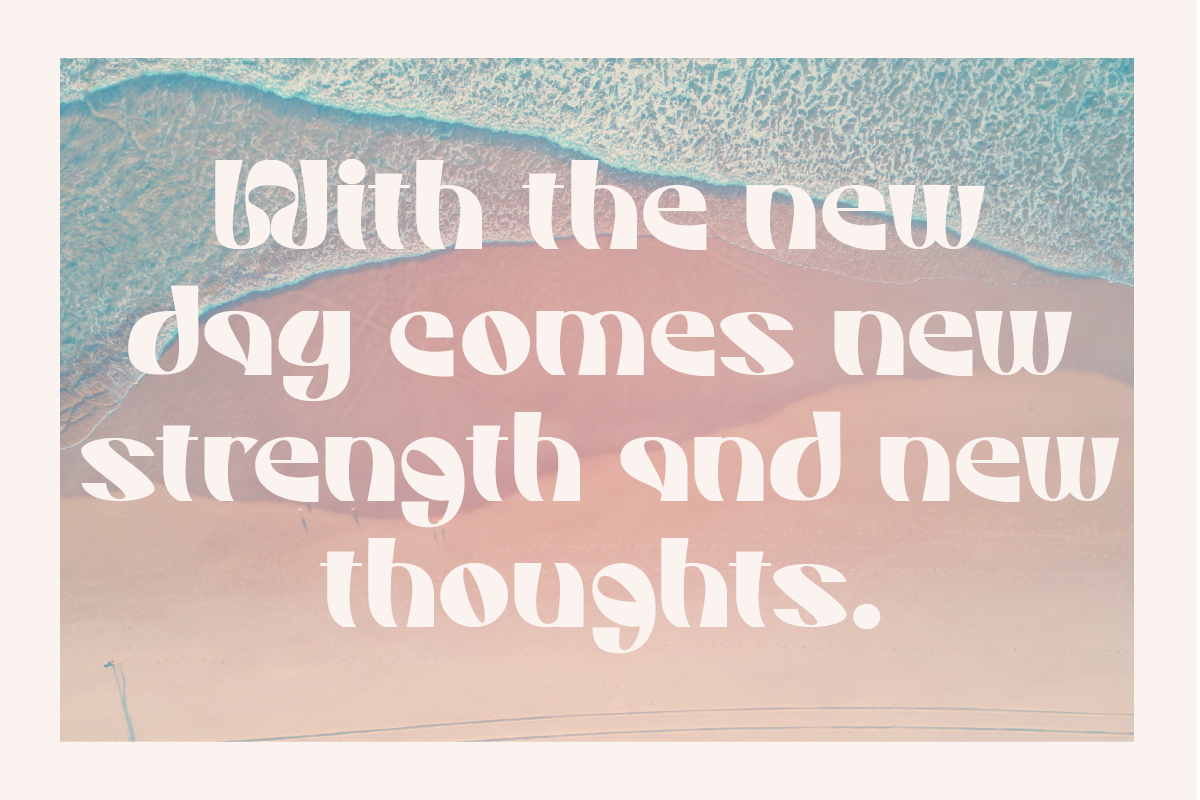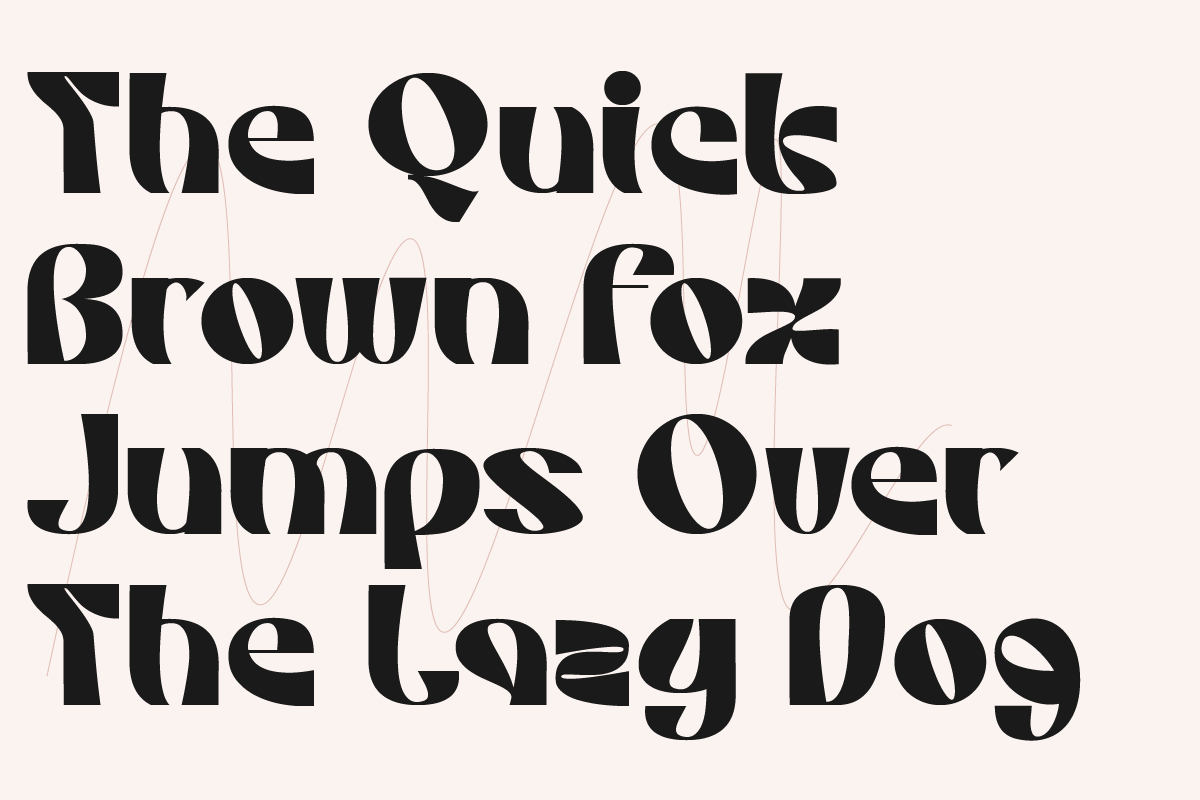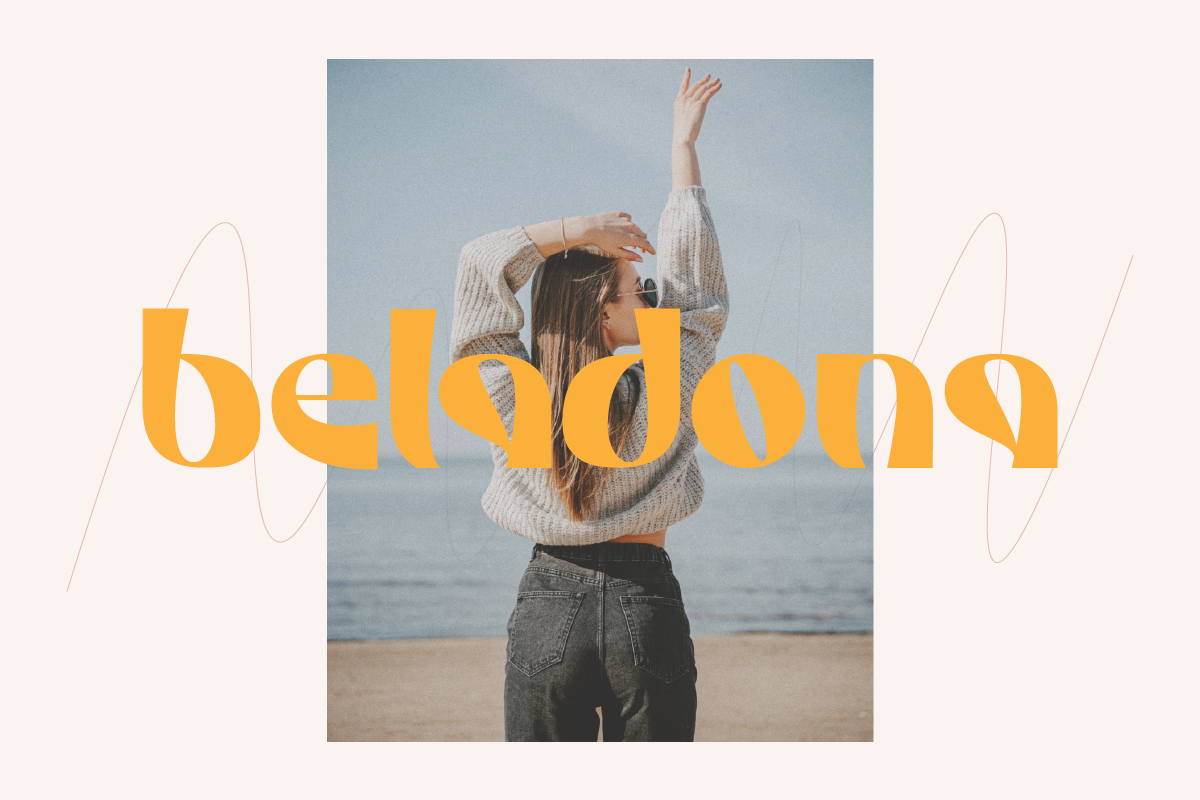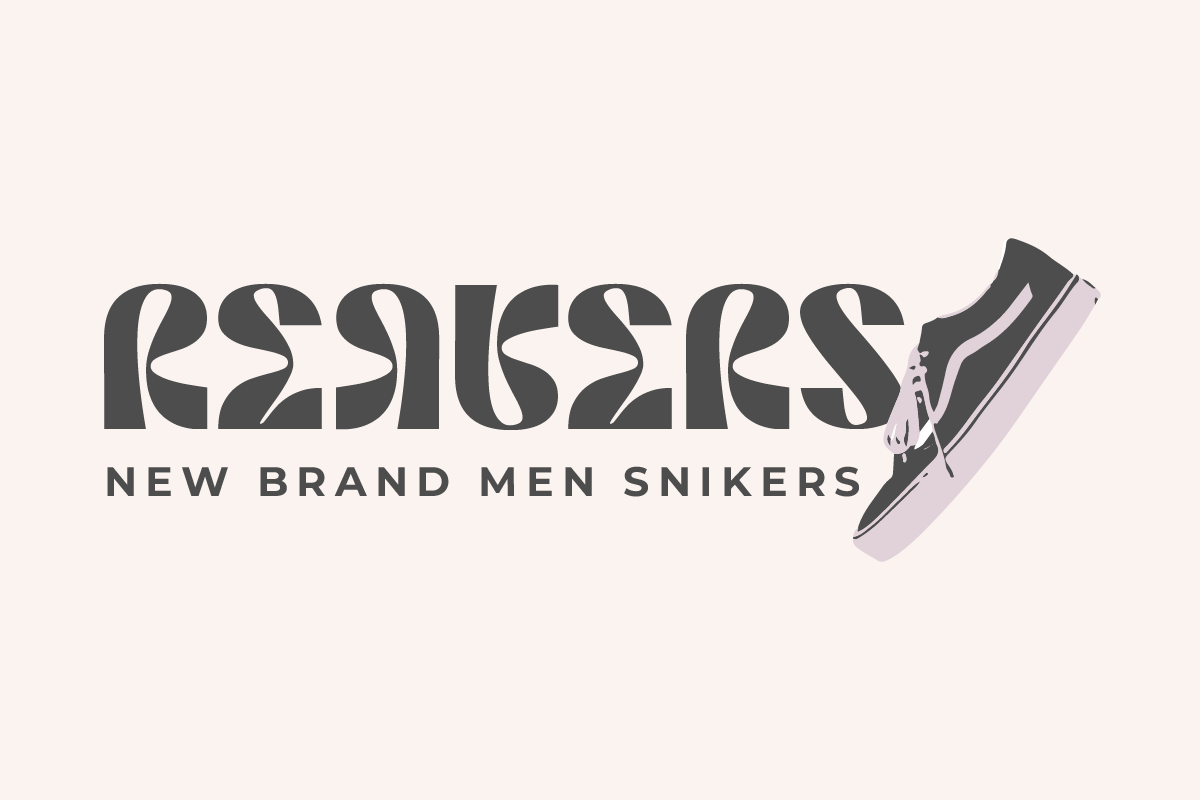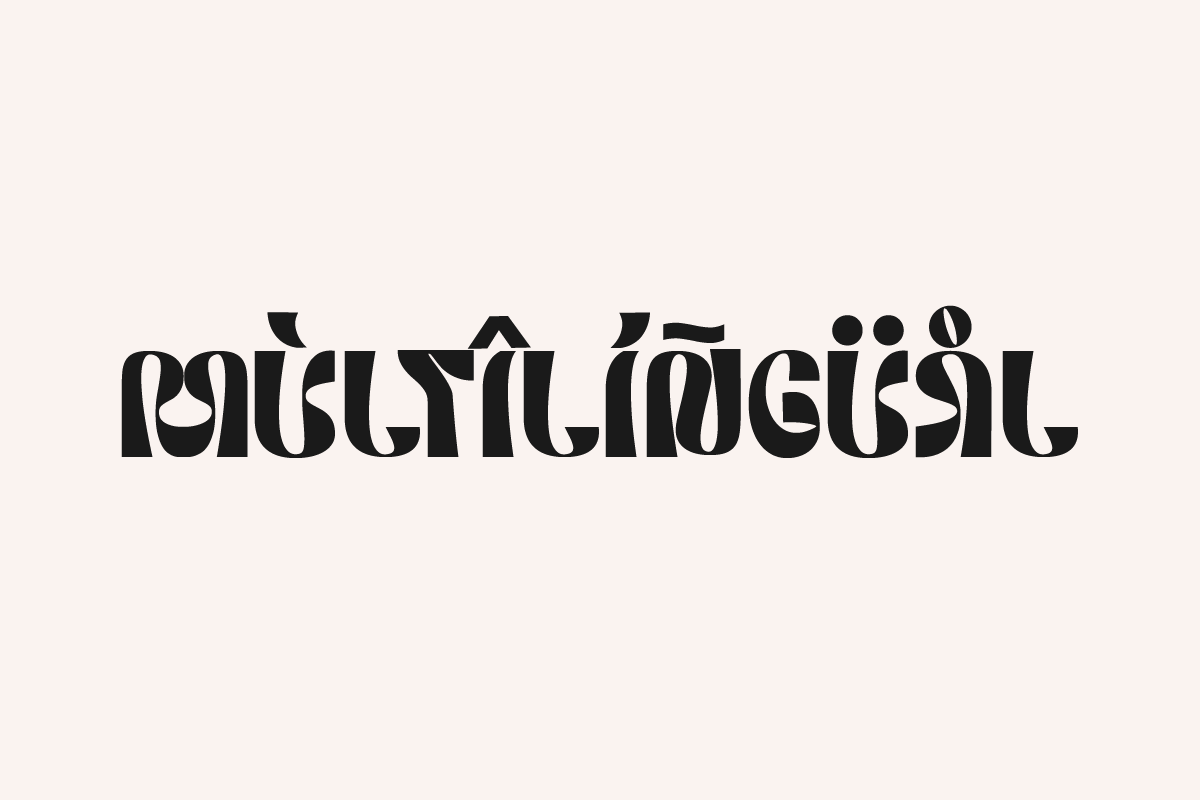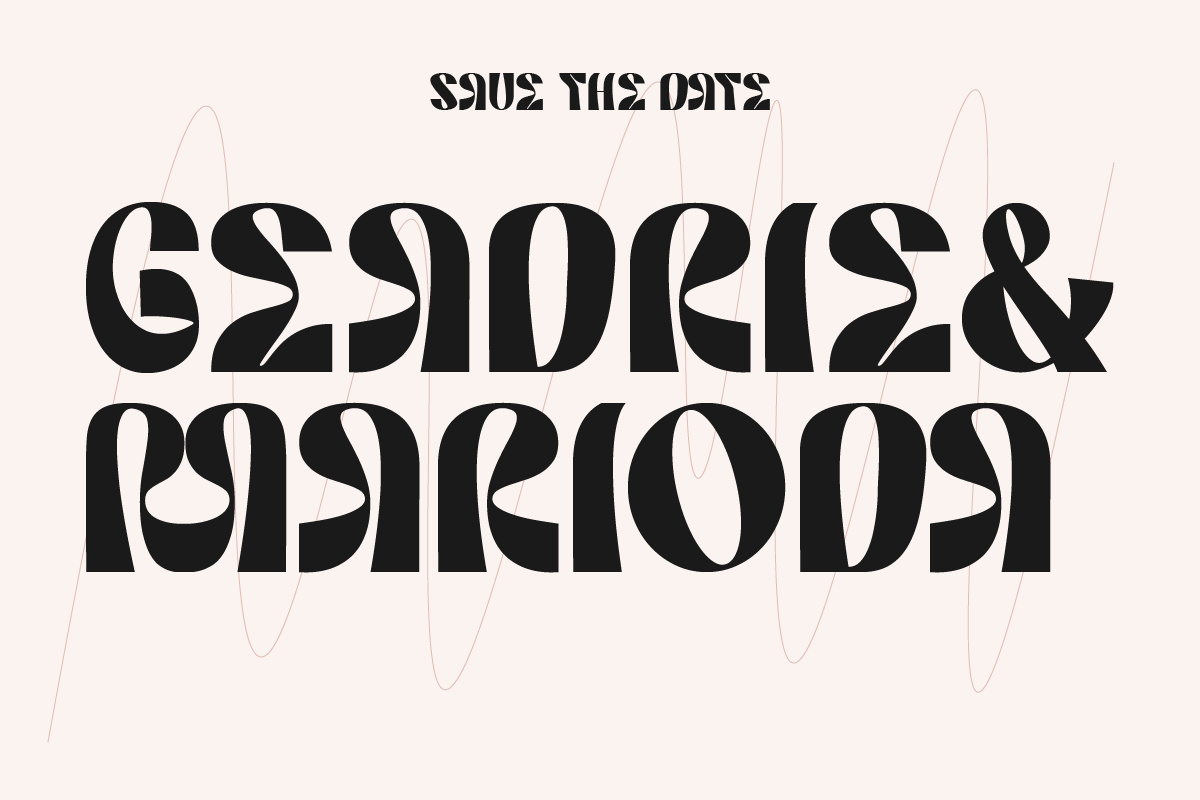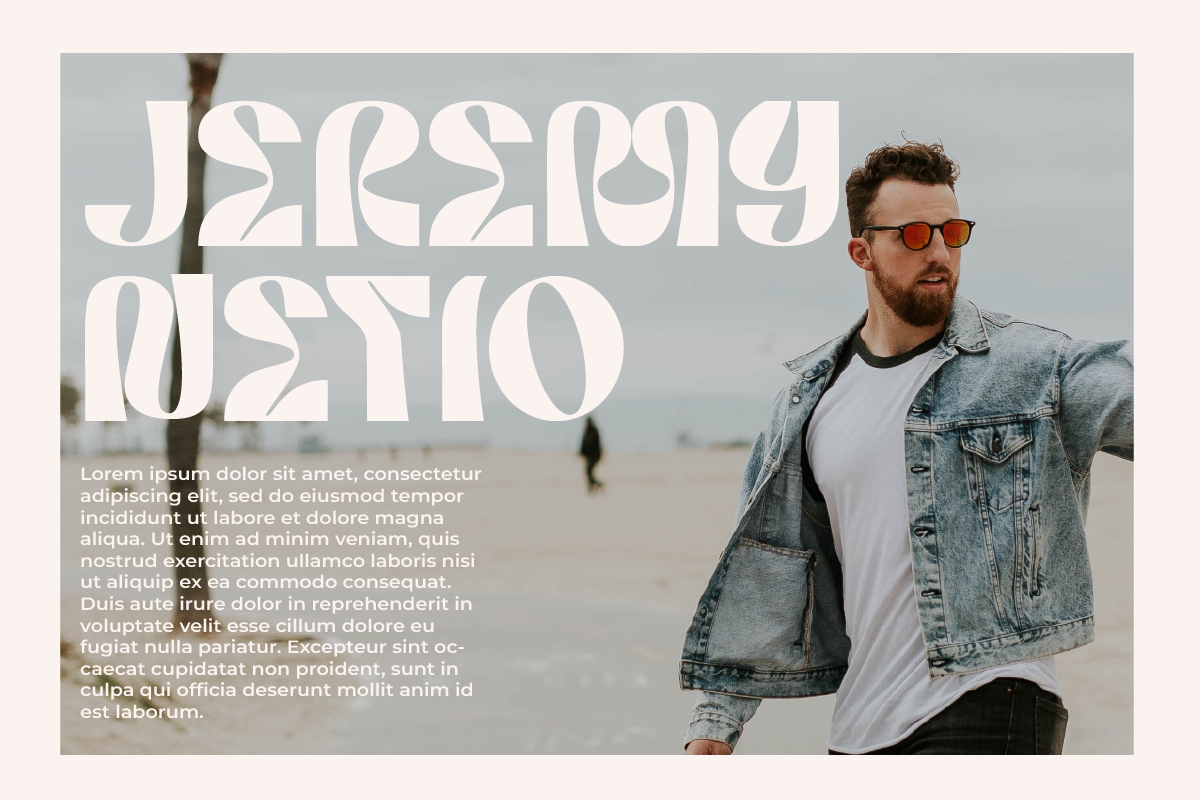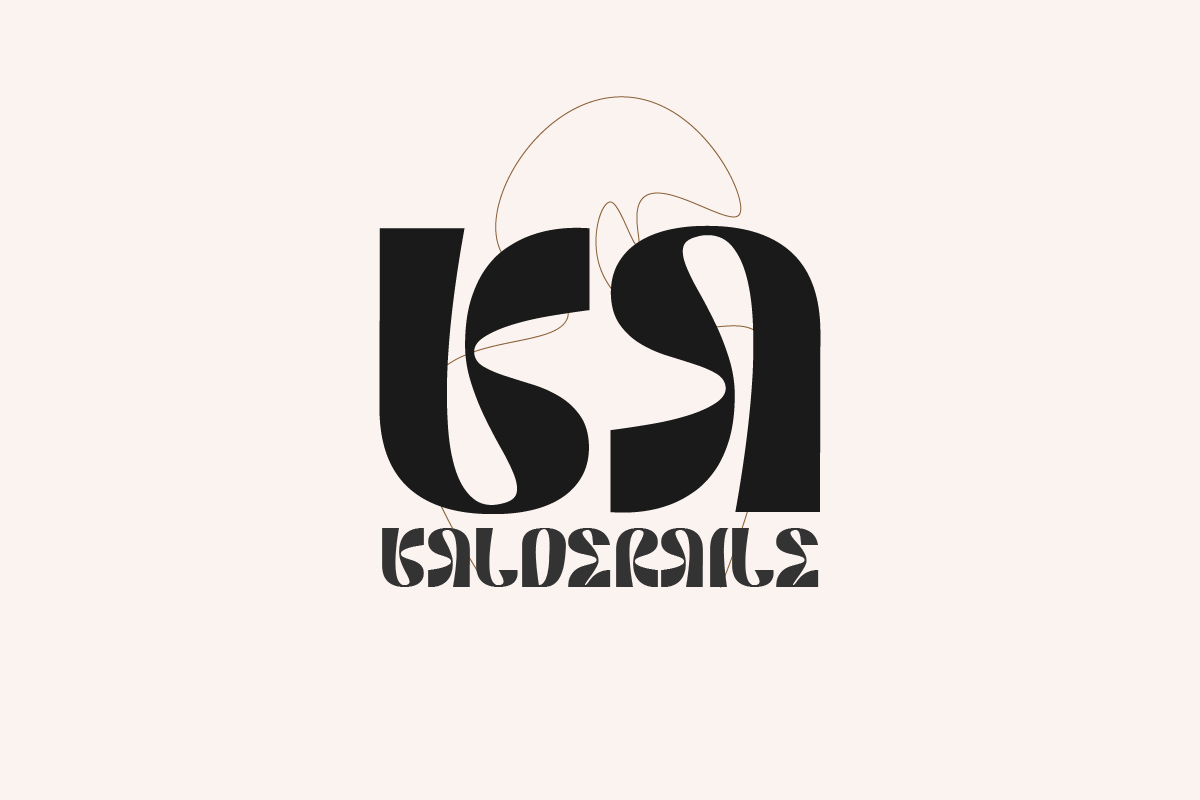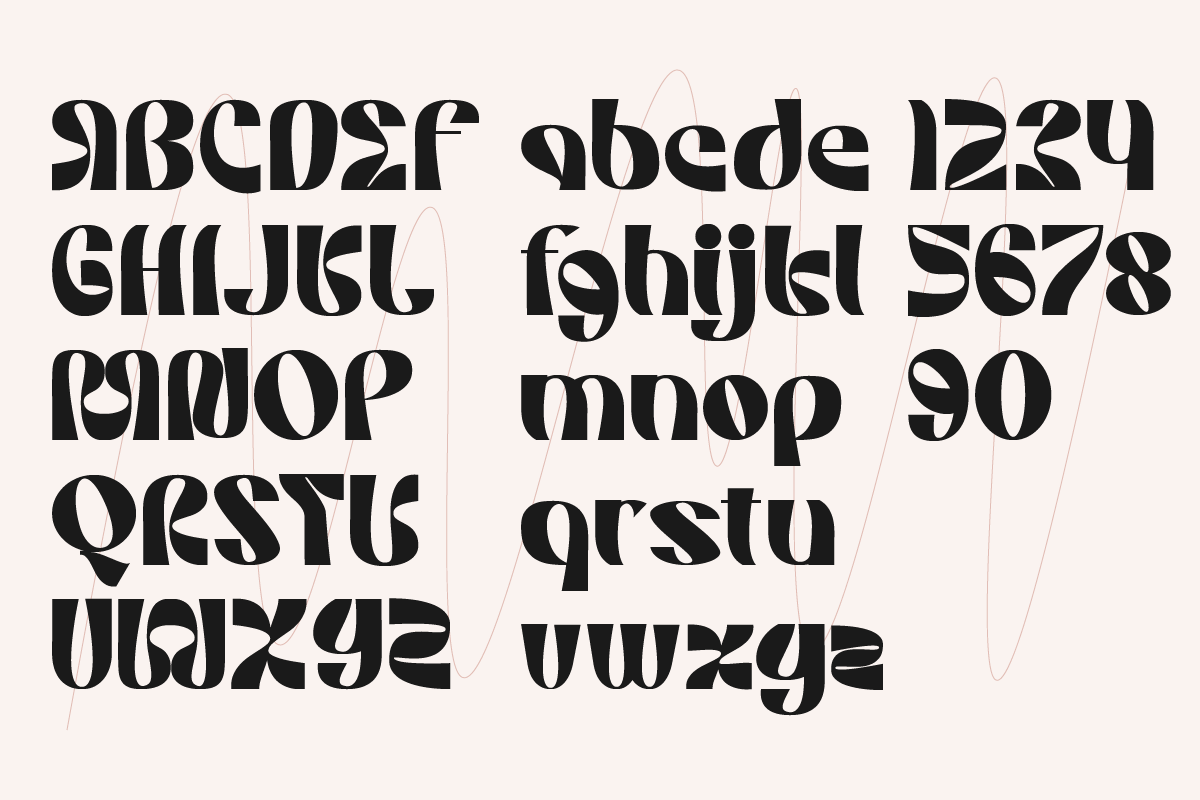
Meriage
Meriage Modern Display Font, special glyphs, ornament and multilingual support. It's a very versatile font that works great in large and small sizes. Perfect for editorial projects, Logo design, Clothing Branding, product packaging, magazine headers, or simply as a stylish text overlay to any background image.
Features: Lowercase and Uppercase Numerals & Punctuation